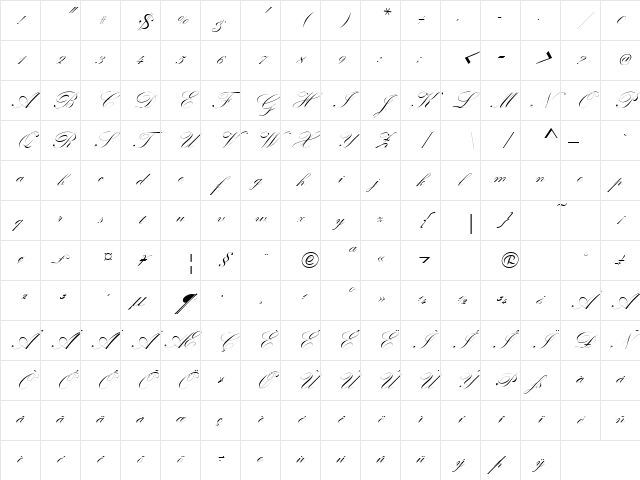
Design Context for Check Quill Script Ssk
Check Quill Script Ssk flows with the natural rhythm of handwritten lettering, making it ideal for designs that call for warmth and personal expression.
Font Pairing: Combine Check Quill Script Ssk with a simple geometric sans for maximum contrast - the tension between flowing curves and clean structure is a classic typographic pairing.
Pro Tip: Use Check Quill Script Ssk for short runs of text - names, titles, or taglines. Extended body copy in script faces tires the eye quickly.